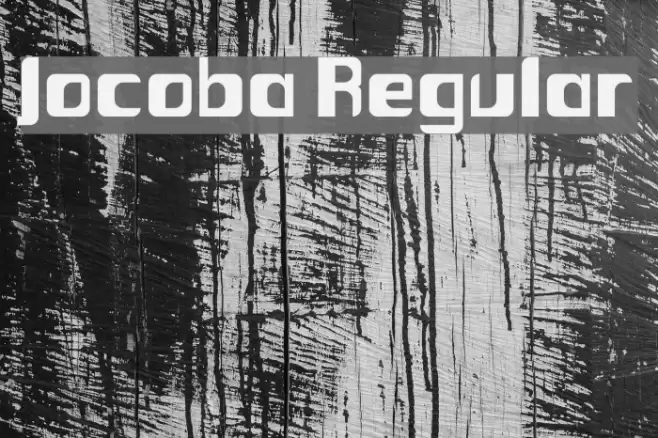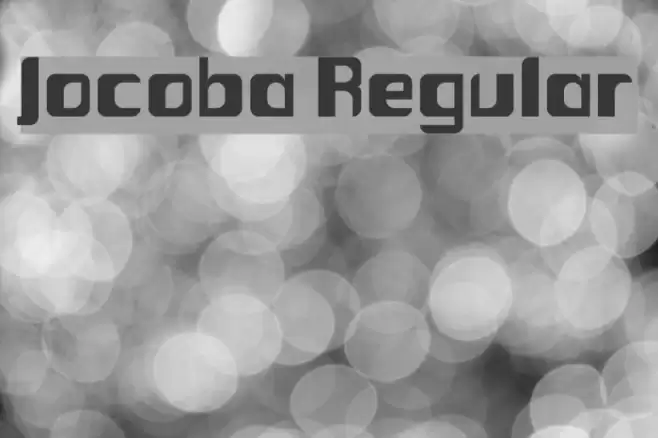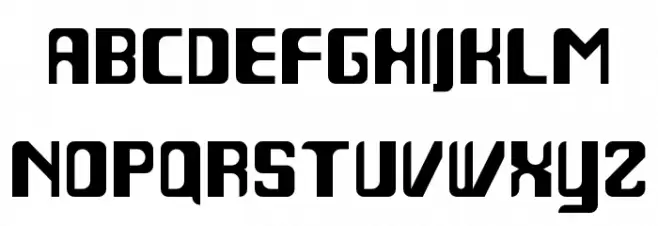
Jocoba Regular Font
Jocoba Regular Description
This font features a bold and geometric design with a modern aesthetic. The characters are constructed with sharp angles and clean lines, giving it a futuristic and tech-inspired appearance. The uppercase and lowercase letters maintain a consistent style, with some unique variations in the lowercase set, such as the distinctive 't' and 'u'. The numerals and special characters are designed to match the overall geometric theme, ensuring uniformity across all glyphs. The font's strong presence makes it suitable for impactful designs.
A bold, geometric font with a modern, tech-inspired style from Uncategorized fonts.
- Proposed Projects: Ideal for technology branding, modern posters, video game titles, and futuristic design projects.